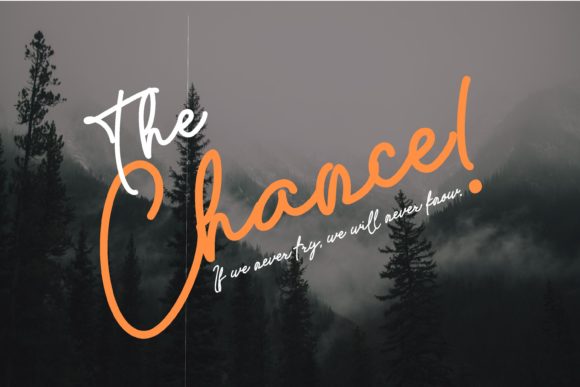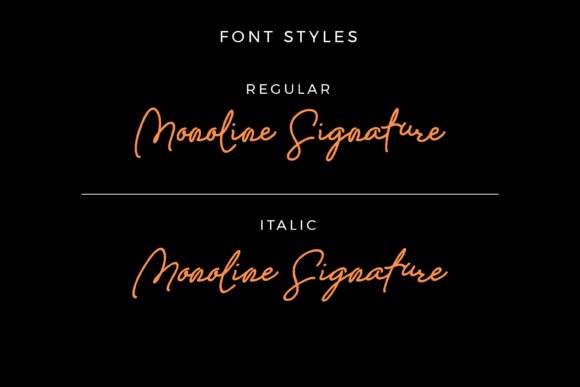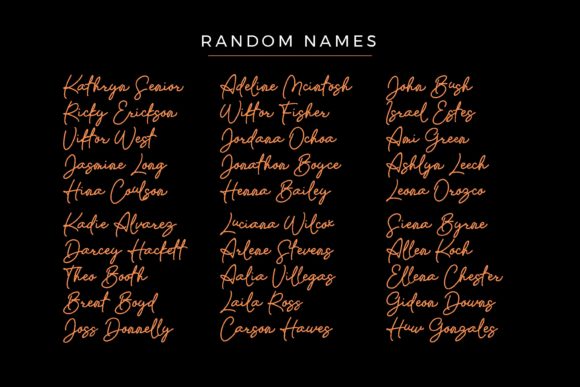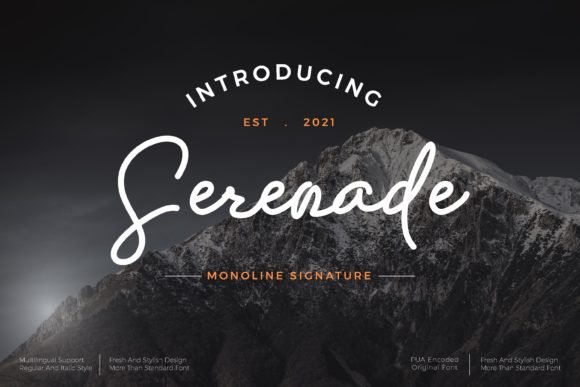
Introduction to Serenade Font
Serenade is a lovely and delicate script font that exudes elegance and class.
This font was particularly crafted for those who need a beautiful and refreshing look to their designs .
Serenade Font offers exceptional quality and versatility, making it a valuable addition to your design toolkit. Whether you’re creating for personal projects or commercial use, Serenade Font delivers professional results.